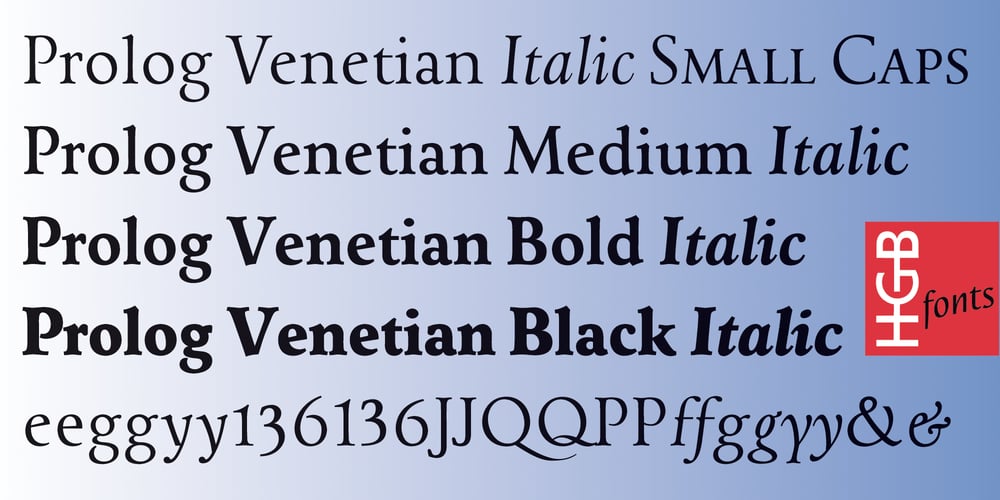
Prolog Venetian Font Family was designed by Hellmut G. Bomm and published by HGB fonts. Prolog Venetian contains 8 styles and family package options. Prolog Venetian is part of an extended font family. Based on Giovanni Francesco Cresci’s font samples from 1570, I drew a Medieval (Old Style) called Prolog Venetian. Following Cresci’s formal principle, a transitional antiqua (Prologue Barock), a classicist antiqua (Prolog Modern) and a slab serif followed. Then I added a sans-serif and a hybrid antiqua. Prolog Venetian has a slanted (Venetian) e in addition to a straight e. Additional variants (table numerals, Old Style Figures, and alternatives of Q-P-g-y) are available via OpenType functions. All Prolog fonts are designed for quantity typesetting. The typeface is pleasantly readable in small gradations and yet independent. A wonderful alternative to the usual text fonts.